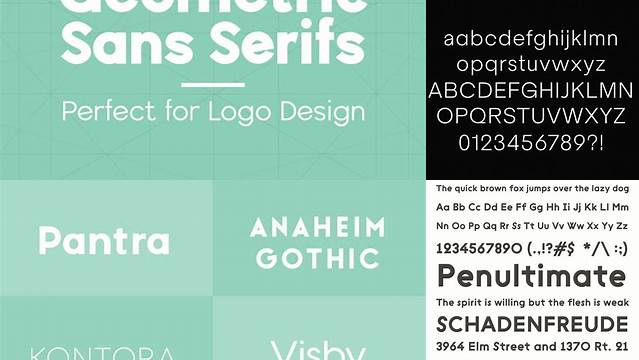
Geometric Sans Serif Fonts: Free Downloads & Guide
Hey there, design enthusiasts! If you're on the hunt for that perfect typeface, you've landed in the right spot. We're diving deep into the world of geometric sans serif fonts, a cornerstone of modern design. And the best part? We'll guide you to some fantastic geometric sans serif free download options. Get ready to elevate your projects with these clean, versatile, and oh-so-stylish fonts!
What Makes Geometric Sans Serif Fonts So Awesome?
So, what exactly is a geometric sans serif font, and why are they so popular, you ask? Well, in a nutshell, these fonts are all about simplicity and structure. They're characterized by their clean lines, uniform strokes, and a focus on geometric shapes, hence the name. Think perfect circles, squares, and triangles forming the basis of each letter. This gives them a distinct, modern look that's both visually appealing and highly readable. It's like, the font version of a minimalist masterpiece!
Geometric sans serif fonts are a go-to choice for a ton of design projects, from website design and branding to print materials and app interfaces. Their inherent clarity makes them ideal for headlines, body text, and everything in between. They're also incredibly versatile, working well in both digital and print environments. Need a font that speaks volumes without saying too much? Geometric sans serif fonts are your answer, friend.
Why are these fonts so sought after? Their inherent clarity and modern aesthetic allow them to fit into a wide range of design contexts. Whether you're crafting a sleek website, designing eye-catching marketing materials, or working on a user-friendly app interface, a geometric sans serif font can bring a touch of sophistication and professionalism to your project. The focus on clean lines and geometric shapes ensures readability, making your message easily accessible to your audience. It's like choosing a well-tailored suit for your design – always a solid choice!
Moreover, the simplicity of these fonts makes them highly adaptable. They pair well with various design elements, from bold colors and striking imagery to minimalist layouts. They don't compete for attention but rather complement other design aspects. This adaptability also makes them timeless. Unlike some trends that come and go, geometric sans serif fonts have maintained their popularity for years, ensuring that your design choices will remain relevant and stylish.
They're not just aesthetically pleasing; they're also incredibly practical. Their clean forms and uniform strokes ensure excellent legibility across different sizes and resolutions. This means your text will be easily readable whether it's displayed on a large screen or a small mobile device. This is a massive advantage in today's digital world, where content needs to be accessible on various platforms. In short, choosing a geometric sans serif font is choosing clarity, style, and versatility, all rolled into one.
Where to Find Free Geometric Sans Serif Fonts (And What to Look For!)
- Font Squirrel: Font Squirrel is another fantastic resource, known for its curated collection of free fonts. They have a great selection of geometric sans serif fonts, often with commercial use licenses. Always double-check the license terms before using any font, but Font Squirrel makes it easy to find fonts you can use freely for your projects. They also have a handy font identifier tool that can help you identify a font you like in an image!
- Behance and Dribbble: These platforms are awesome for discovering talented designers and their work. Many designers offer free fonts as part of their portfolios. It's a great way to find unique fonts and support creative professionals. Keep an eye out for freebies offered alongside their design showcases. You'll often stumble upon some hidden gems!
- DaFont: DaFont is a massive repository of fonts, including a wide variety of geometric sans serifs. While the quality can vary, it's a great place to browse and discover new options. Remember to always check the license terms, as some fonts may be free for personal use only.
When you're searching for that perfect geometric sans serif free download, keep these things in mind: